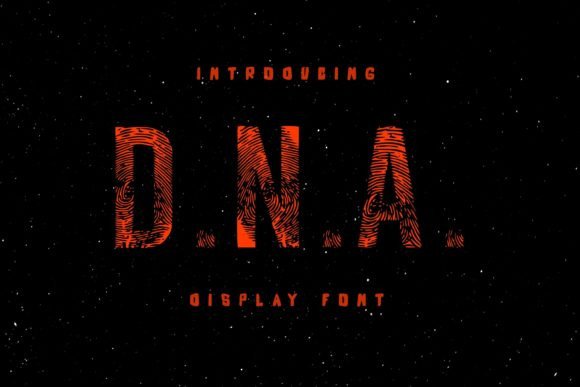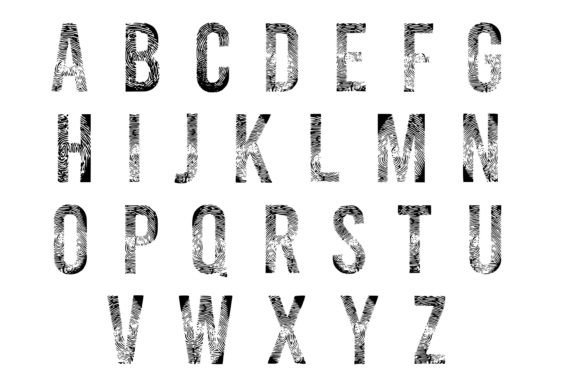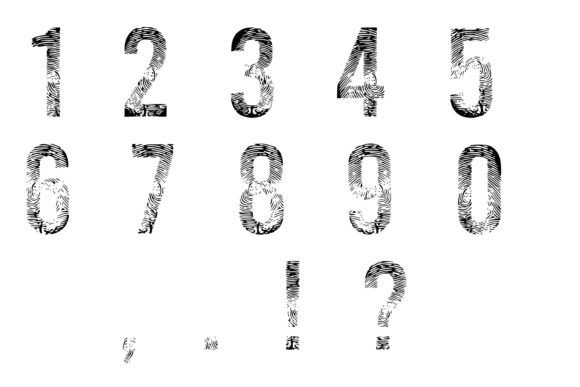
Introducing D.N.A Font: The Ultimate Display Font for Stunning Designs
Are you a designer or crafter looking for a font that will make your artwork stand out? Look no further than D.N.A Font, a bold and eye-catching display font perfect for posters, t-shirt designs, stickers, and more. With its unique and stylish design, D.N.A Font is sure to elevate your creative projects to the next level.
What Makes D.N.A Font So Special?
D.N.A Font is a carefully crafted display font that boasts a distinctive and modern design. Its bold and chunky letters are perfect for creating eye-catching headlines, titles, and captions that demand attention. Whether you’re designing a poster, t-shirt, or sticker, D.N.A Font is the perfect choice for adding a touch of personality and style to your artwork.
D.N.A Font is incredibly versatile and can be used for a wide range of design projects, including:
- Posters: Create stunning posters that grab attention with D.N.A Font’s bold and eye-catching design.
- T-Shirt Designs: Add a touch of personality to your t-shirt designs with D.N.A Font’s unique and stylish letters.
- Stickers: Create stickers that stand out from the crowd with D.N.A Font’s bold and chunky design.
- Logos: Use D.N.A Font to create a bold and memorable logo for your brand or business.
Why Choose D.N.A Font?
So why choose D.N.A Font over other display fonts? Here are just a few reasons:
- Unique Design: D.N.A Font boasts a unique and stylish design that will set your artwork apart from the crowd.
- High-Quality: D.N.A Font is a high-quality font that is carefully crafted to ensure that it looks great in any design.
- Versatile: D.N.A Font can be used for a wide range of design projects, making it a great addition to any designer’s toolkit.
Tips for Using D.N.A Font
Here are a few tips for using D.N.A Font in your designs:
- Use it boldly: D.N.A Font is a bold font, so don’t be afraid to use it boldly in your designs.
- Experiment with colors: D.N.A Font looks great in a variety of colors, so experiment with different colors to find the one that works best for your design.
- Pair it with other fonts: D.N.A Font can be paired with other fonts to create a unique and stylish design.
In conclusion, D.N.A Font is a bold and eye-catching display font that is perfect for designers and crafters looking to add a touch of personality and style to their artwork. With its unique and stylish design, high-quality construction, and versatility, D.N.A Font is a great addition to any designer’s toolkit. So why wait? Download D.N.A Font today and start creating stunning designs that demand attention!